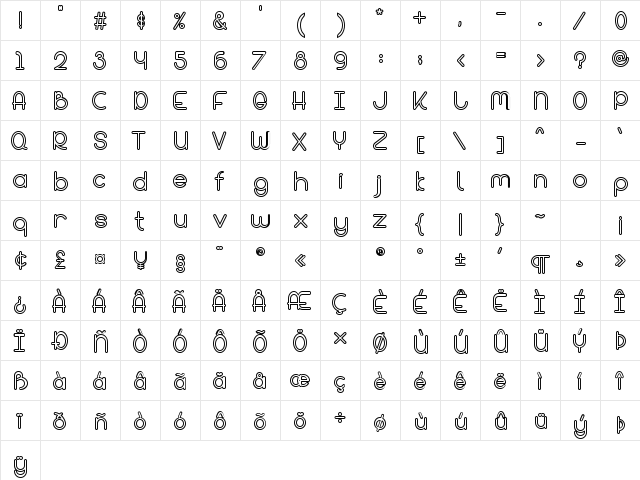
Bandar Outline Regular
| Designer | Afkari Studio KanaType |
Design Context for Bandar Outline Typeface
Bandar Outline brings ornamental detail and strong personality to headlines and identities, where visual impact matters more than quiet functionality.
Font Pairing: Pair with a clean neutral sans-serif for body copy to let Bandar Outline's character lead without overwhelming the composition.
Pro Tip: Use Bandar Outline exclusively at display sizes — it was designed to be seen, not read at length. Let a neutral companion handle body copy.